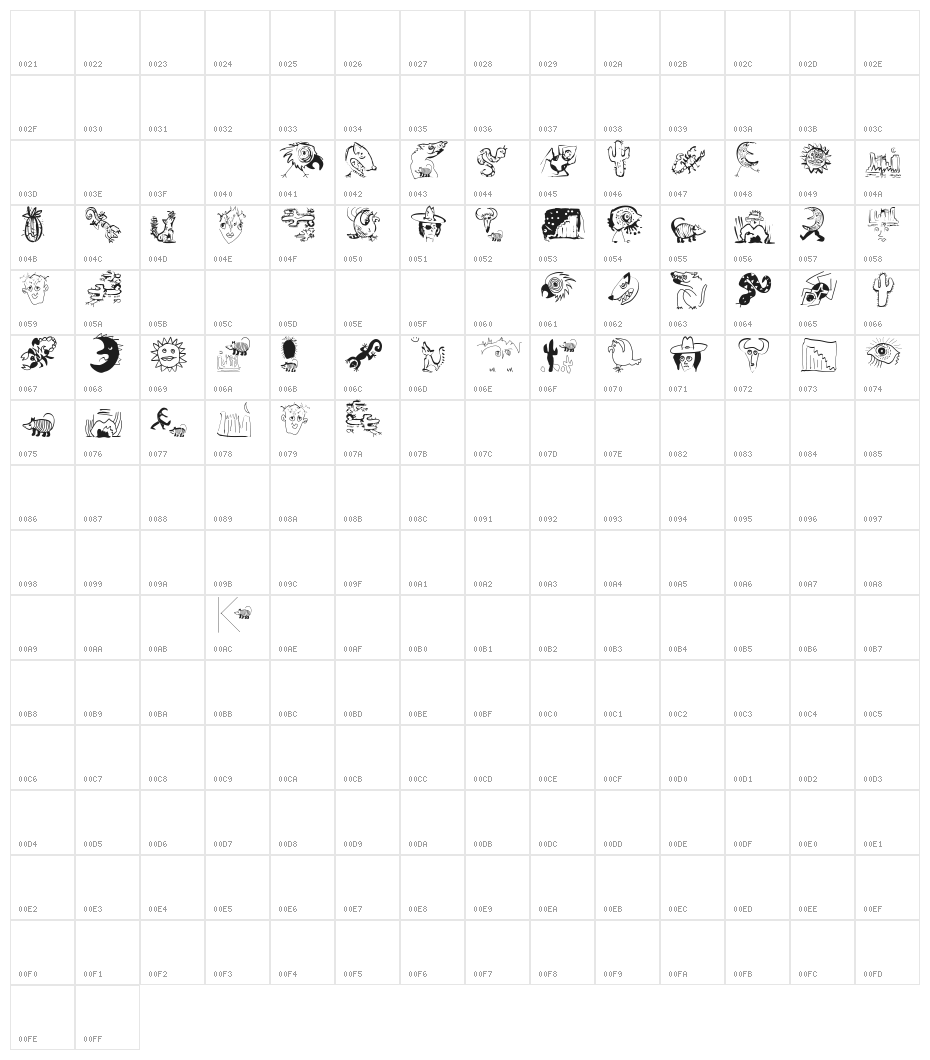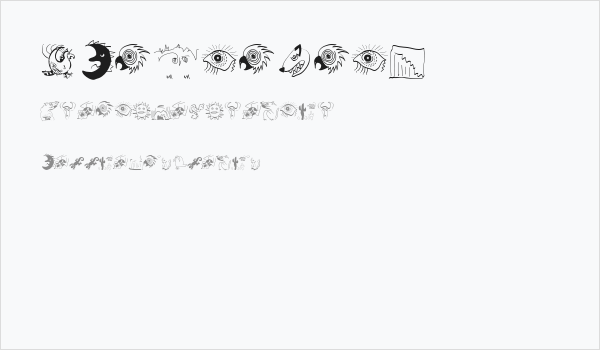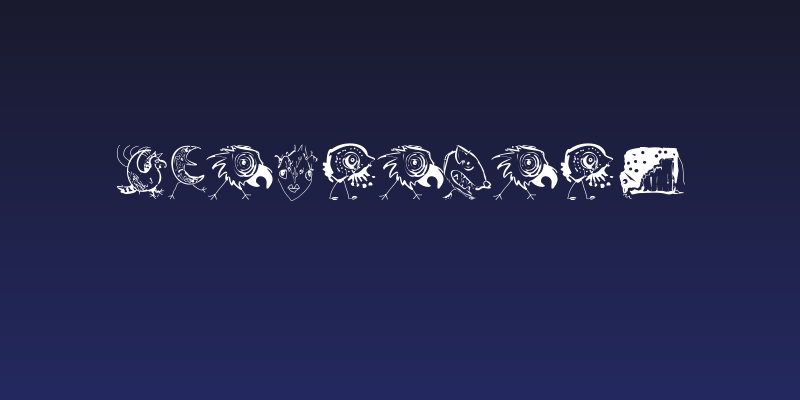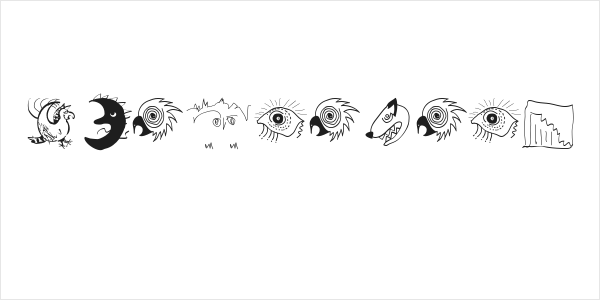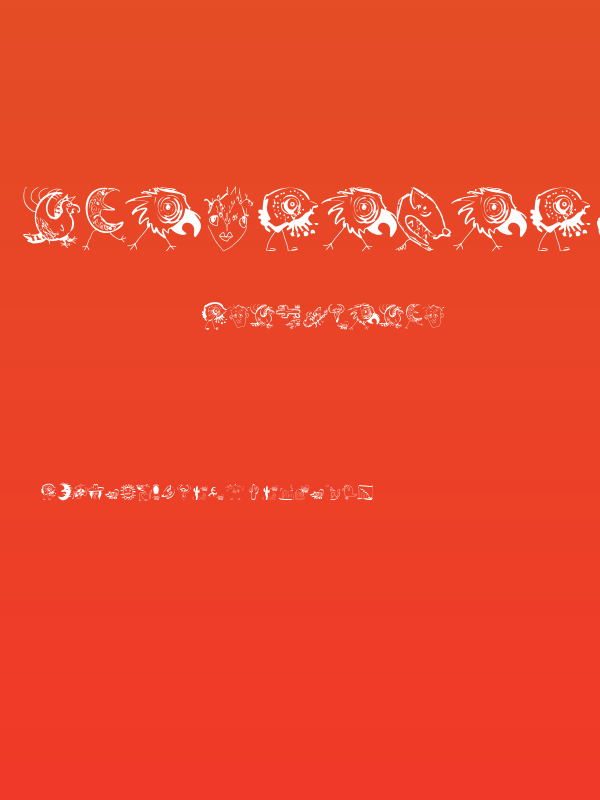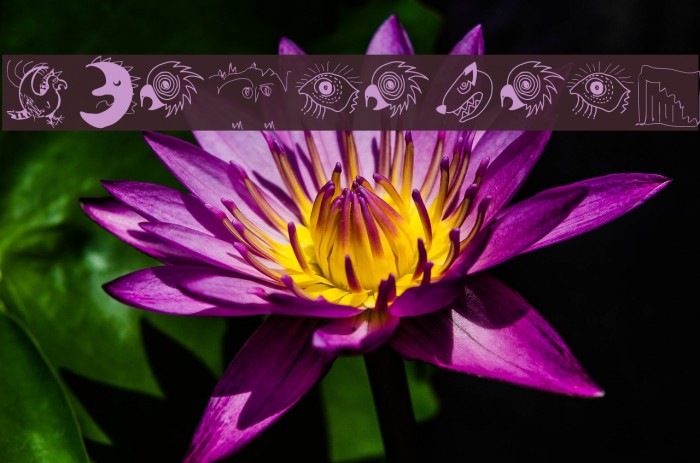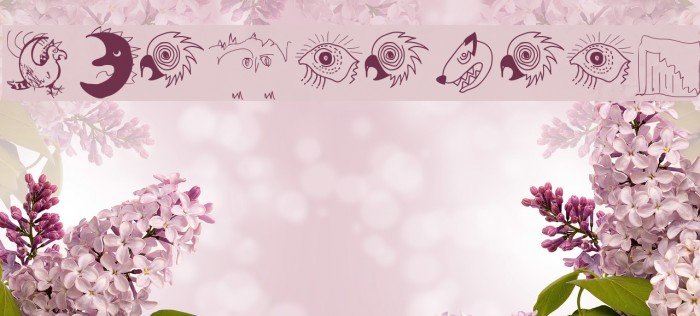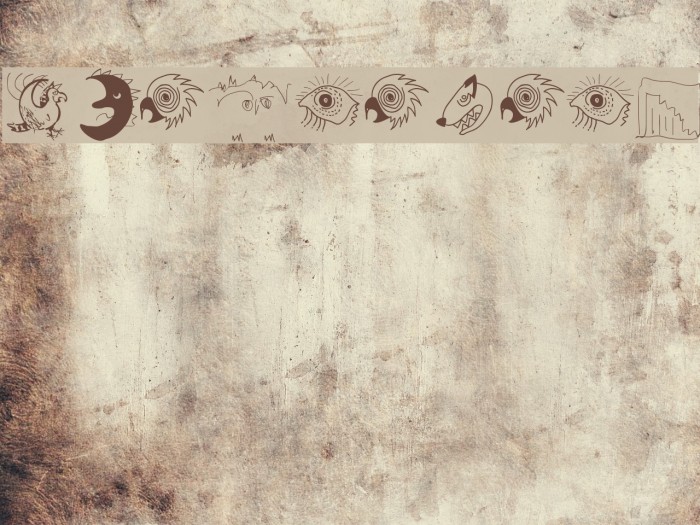
Phantabats Font
Phantabats Description
This is a decorative and playful collection of symbols and illustrations, featuring a variety of whimsical and imaginative designs. The characters include a mix of animals, nature elements, and abstract shapes, each with a unique and quirky style. The illustrations are bold and detailed, making them suitable for creative and artistic projects. The overall theme is eclectic and fun, with a hand-drawn appearance that adds a personal touch to each symbol. This set is perfect for adding a distinctive and artistic flair to any design.
| Use Case | Logos, Artistic designs, Posters |
| Proposed Projects | Ideal for creative projects such as greeting cards, posters, children's books, and artistic branding. |